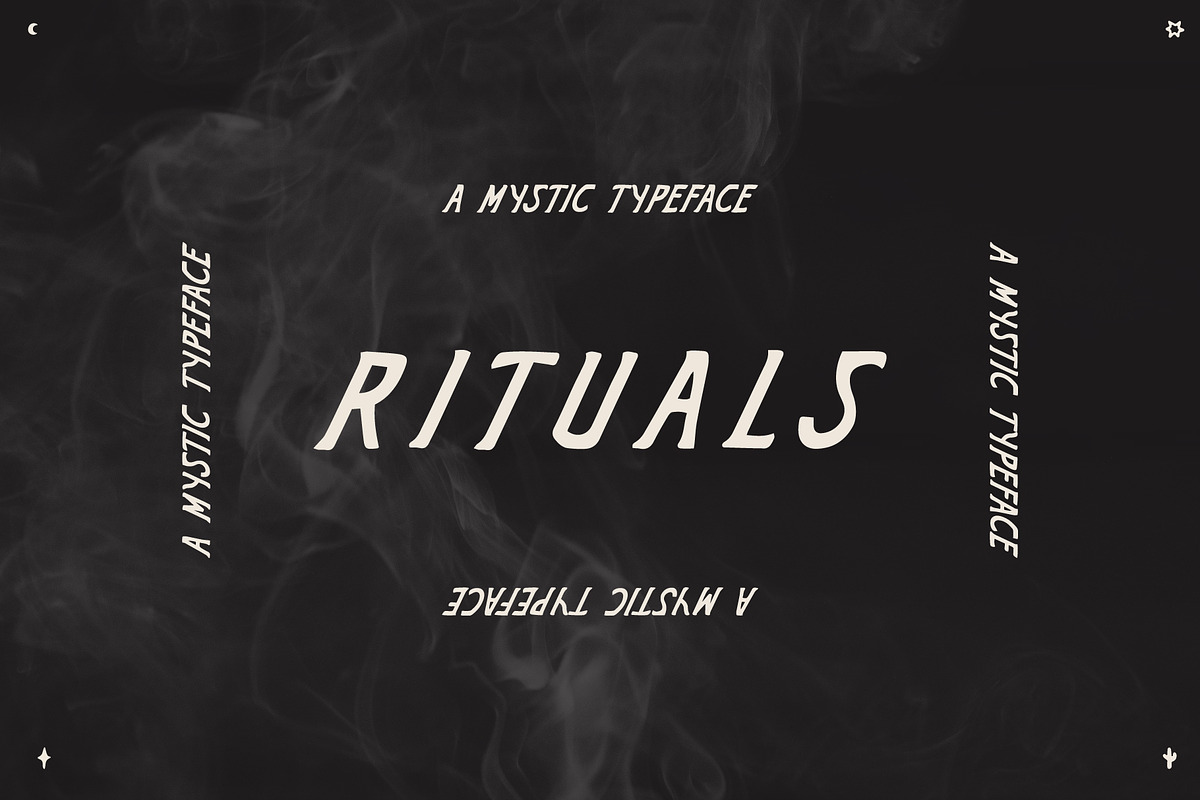
Rituals
Introducing "Rituals" – a font that transcends the ordinary and beckons creatives into an enchanting world of mystique and allure. Crafted to embody the essence of natural mysticism, this font is not just a typeface; it's an artistic journey waiting to unfold.
Embrace the Western charm and natural feeling of "Rituals." Infused with a super cool and unique aesthetic, this font encapsulates the spirit of the untamed frontier, blending modernity with a touch of old-world charm. Its rugged yet sophisticated demeanor sets the stage for an array of creative possibilities.
What sets "Rituals" apart is its collection of extra illustrated glyphs, adding a layer of depth and character to your designs. These intricately crafted symbols, reminiscent of ancient markings and Western iconography, elevate your creative canvas, offering a unique storytelling element.
From branding projects seeking an edgy, cowboy-inspired look to adventurous poster designs, "Rituals" brings a natural and Western vibe that captures attention effortlessly. Its versatility shines in social media graphics, blog headers, merchandise, and beyond, invoking a sense of curiosity and intrigue.
Feel the raw energy of the Wild West coursing through each letterform. The font's natural feeling and handcrafted appeal transport you to a time of untamed wilderness, where uniqueness reigns supreme. Its fusion of modern coolness and rustic charm paints a canvas for originality, empowering you to create designs that stand out from the crowd.
Embrace the untamed spirit of the West and the artistic uniqueness of "Rituals." Infuse your designs with authenticity, character, and a dash of daring creativity that captivates audiences and leaves an indelible mark on every project. Experience the font that unlocks a world of creative expression and brings your imaginative visions to life.